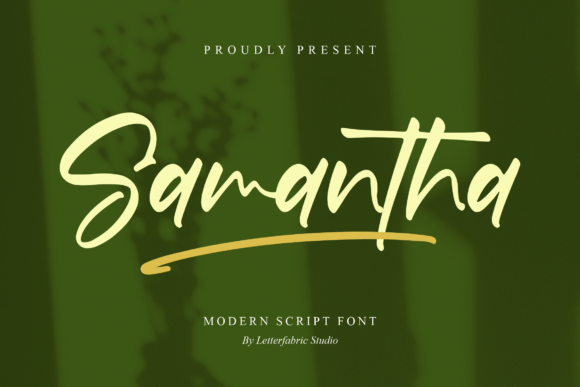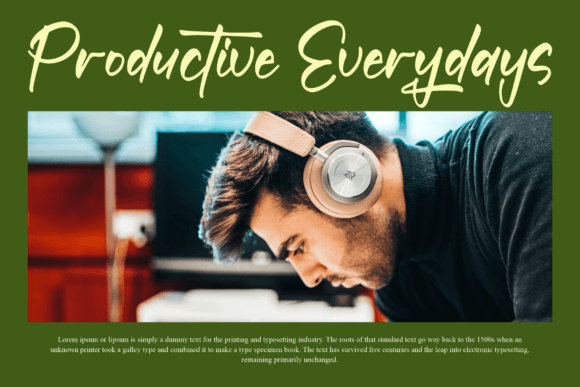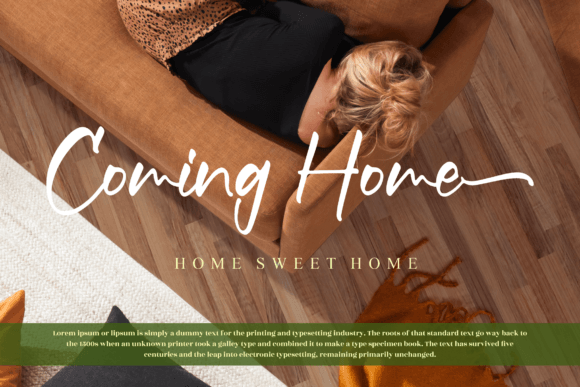
About Samantha Font
“Samantha” is a modern script font that stands as a testament to contemporary elegance in the world of typography. Its sleek and stylish design makes it a versatile choice for a wide array of creative projects, adding a touch of sophistication to every application.
Primarily tailored for logos and branding projects, “Samantha” effortlessly embodies the essence of modern design. Its clean lines and fluid strokes contribute to a refined aesthetic, making it an ideal choice for homeware designs, product packaging, and even merchandise like mugs and t-shirts. The font’s ability to adapt to various mediums and surfaces showcases its flexibility in meeting the diverse needs of design projects.
The versatility of “Samantha” extends to print materials such as quotes, posters, shopping bags, book covers, name cards, and invitation cards. Its ability to convey a sense of modernity while maintaining a graceful script taste makes it a standout choice for creating eye-catching labels, greeting cards, and more. The font effortlessly adds a touch of sophistication to photography watermarks, making it an excellent choice for those who seek a harmonious blend of style and functionality.
Special events, in particular, benefit from the elegant appeal of “Samantha.” Whether it’s wedding invitations, stationery for milestone celebrations, or any project requiring a beautiful script taste, this font rises to the occasion. Its graceful letterforms add a layer of charm to such projects, contributing to a memorable and visually appealing outcome.
In conclusion, “Samantha” is more than just a font; it’s a design asset that elevates your creative endeavors. Its modern script design, coupled with a beautiful script taste, makes it a versatile choice for designers seeking to make a sophisticated statement across a diverse range of projects. With “Samantha,” your designs can achieve a timeless and contemporary allure that captivates audiences and leaves a lasting impression.